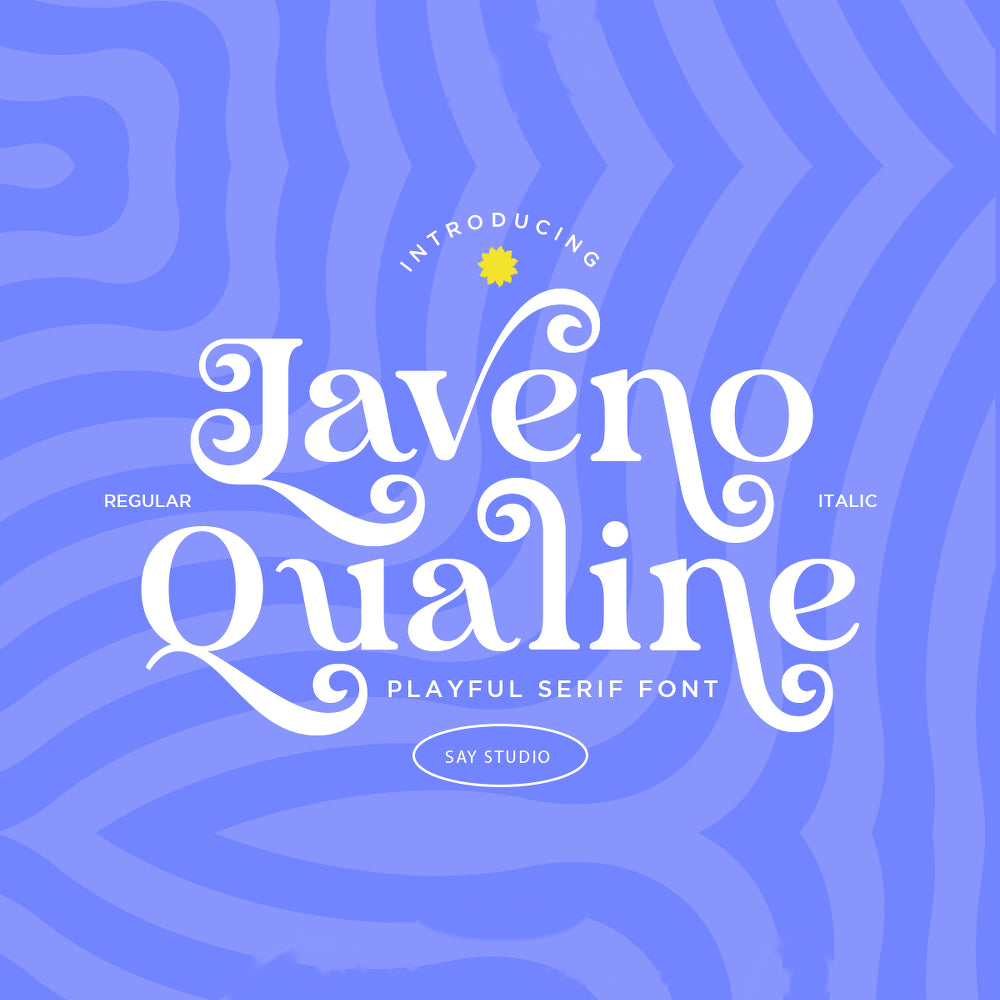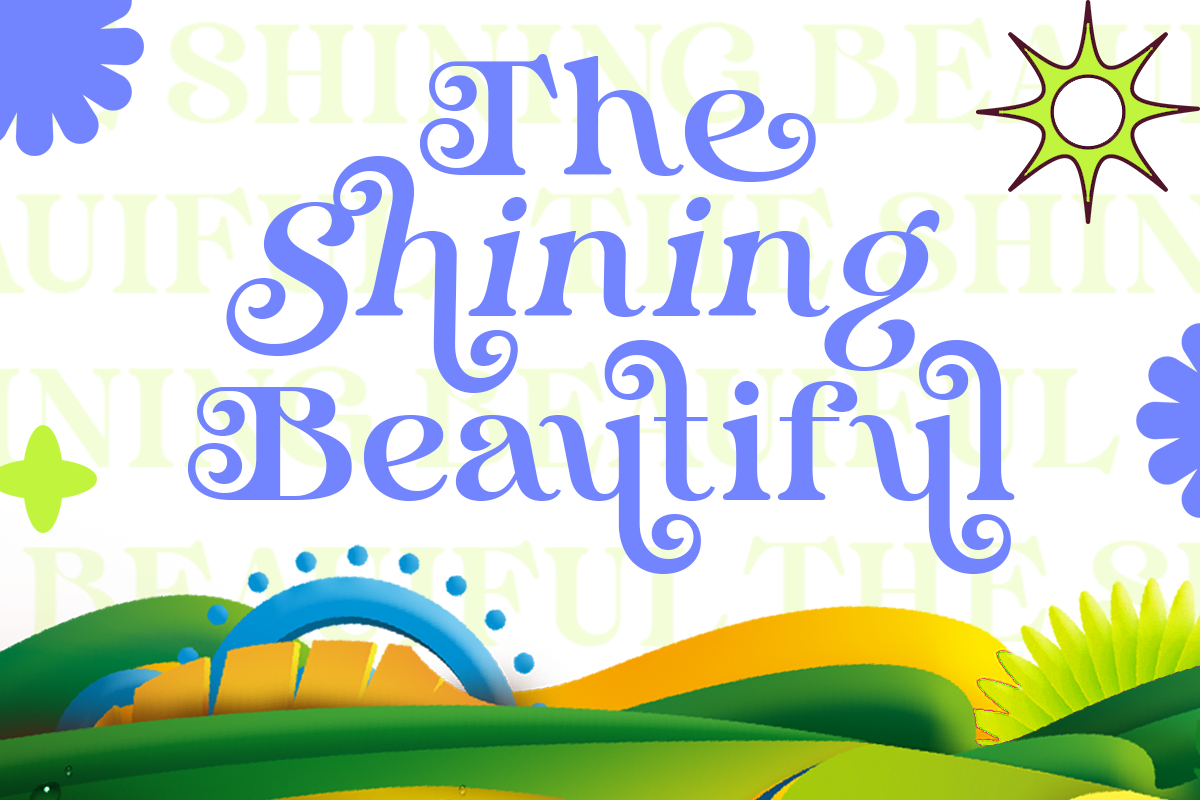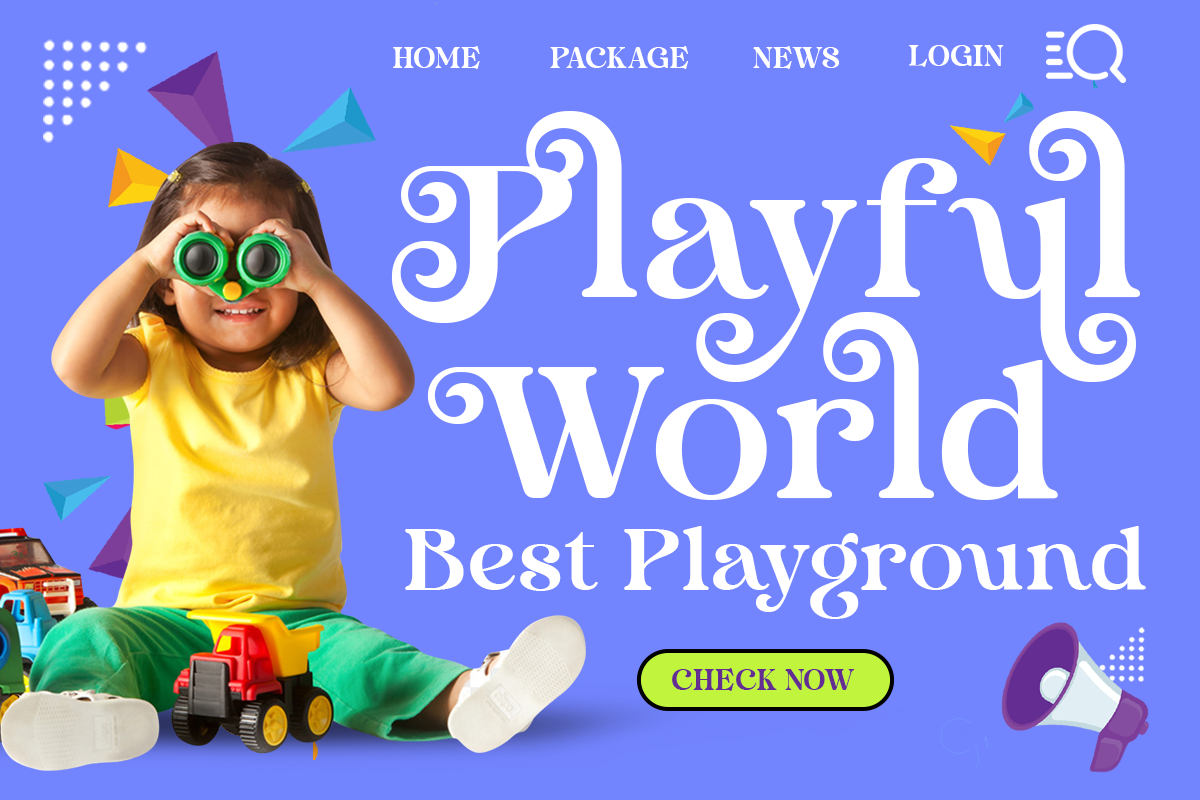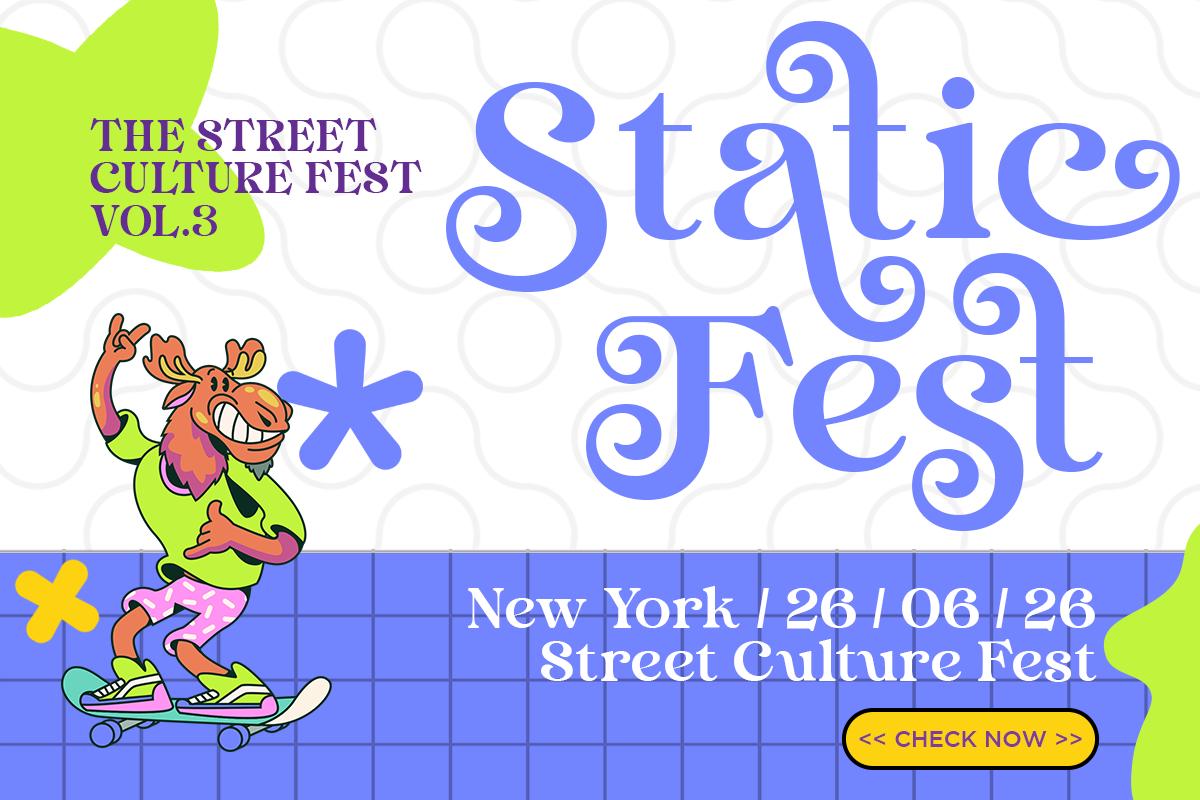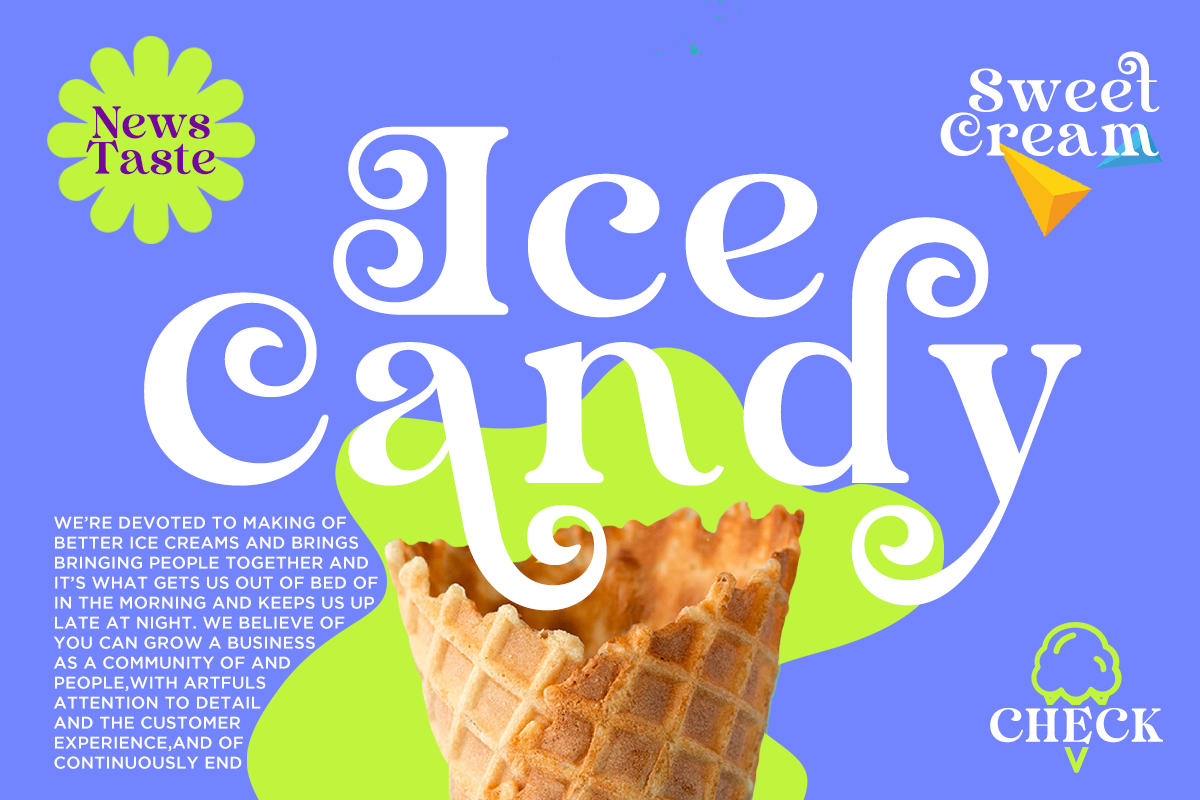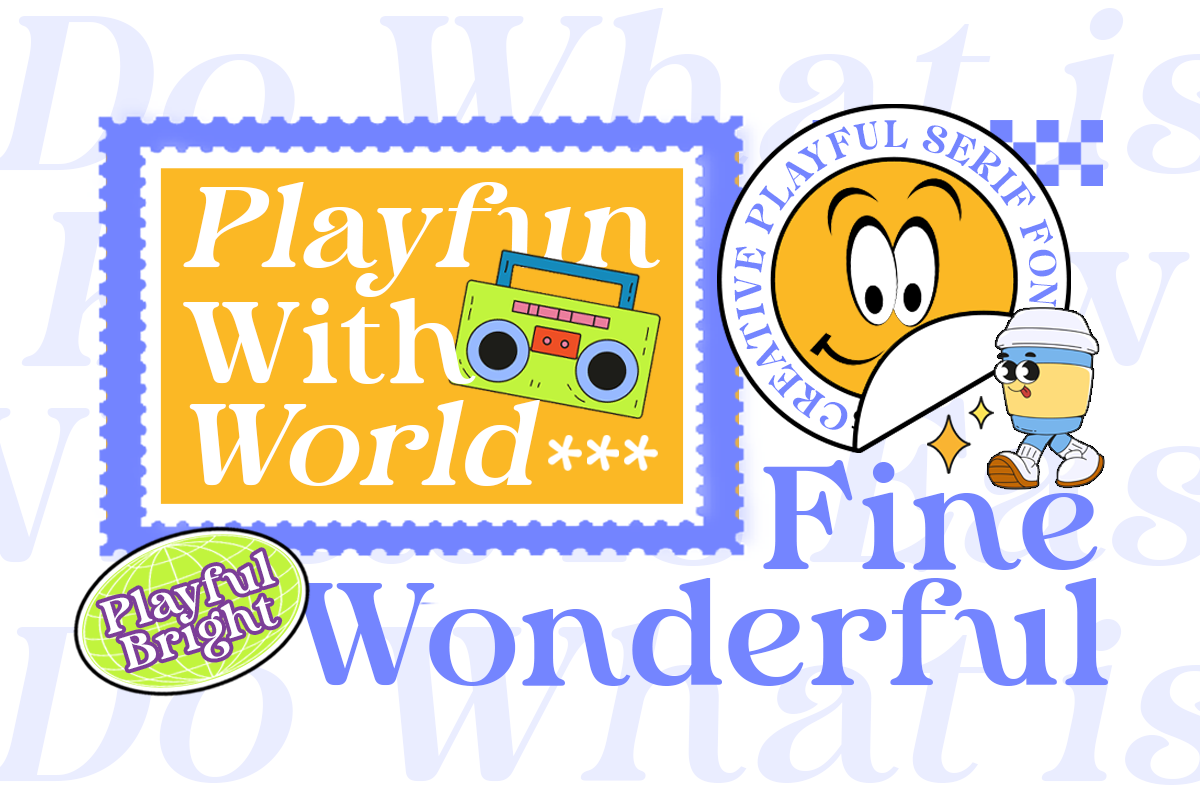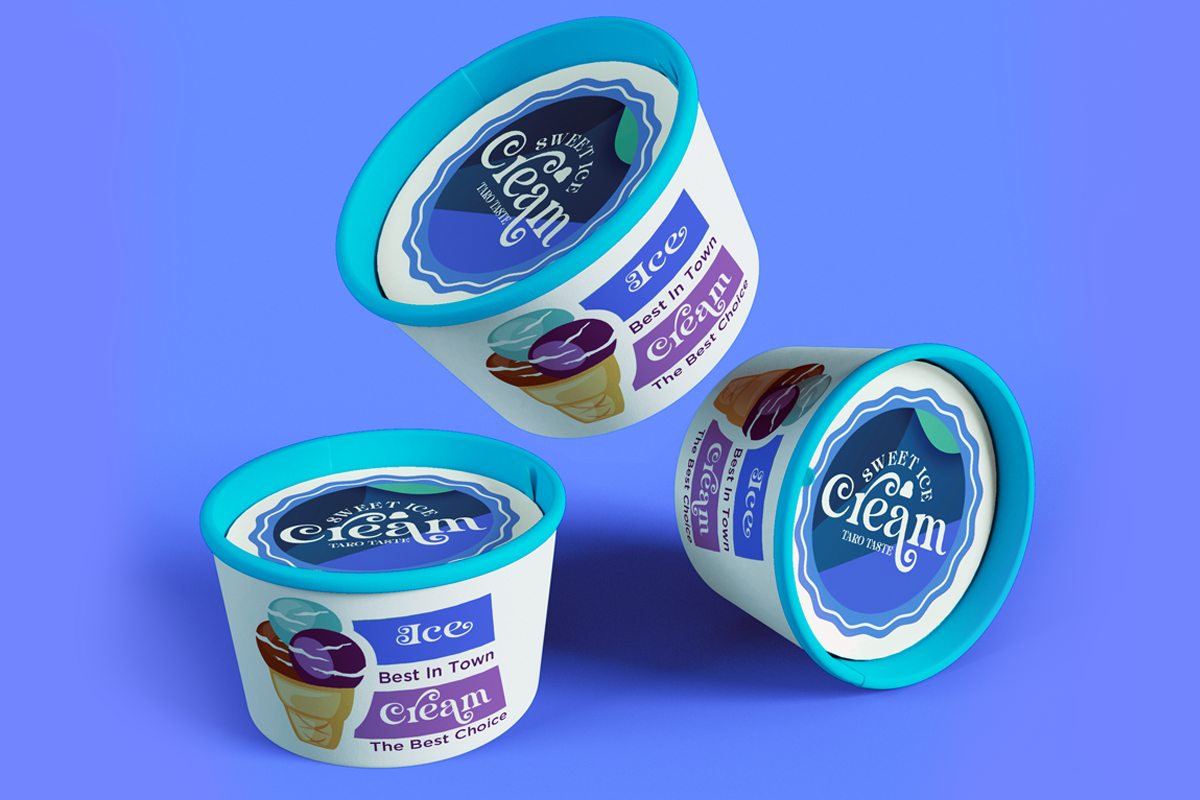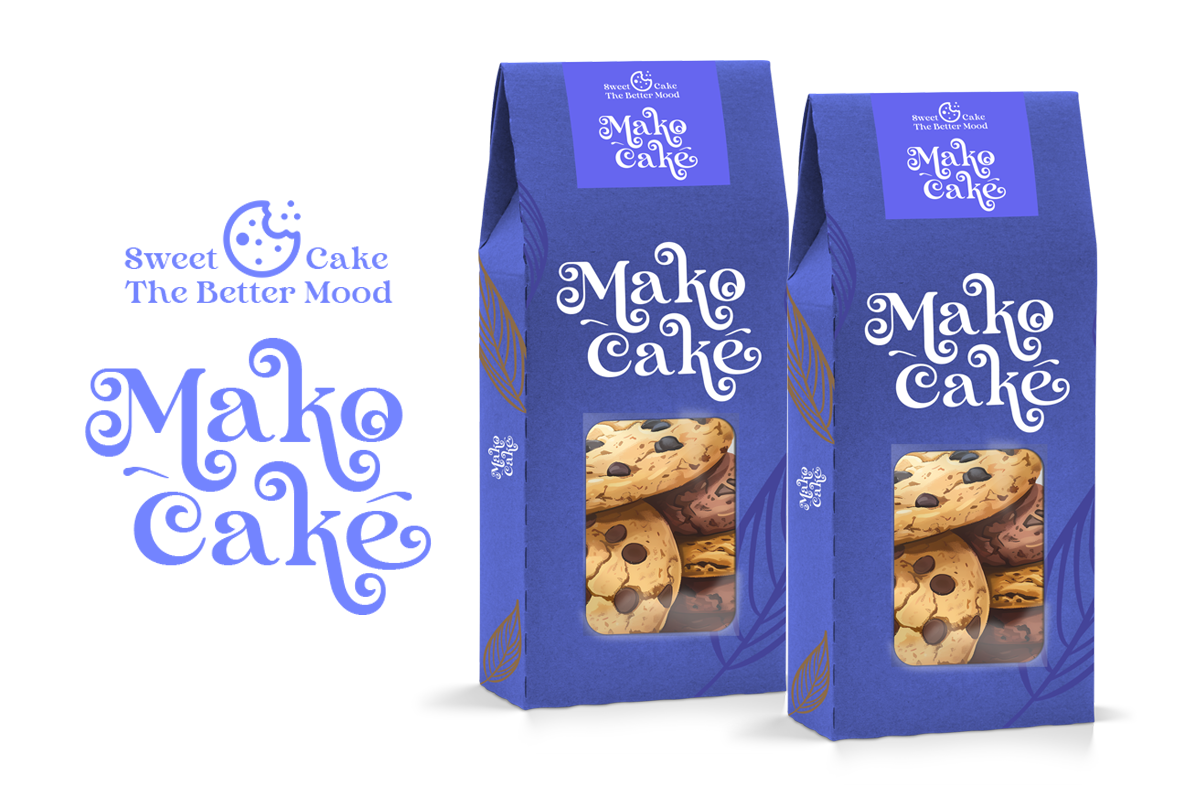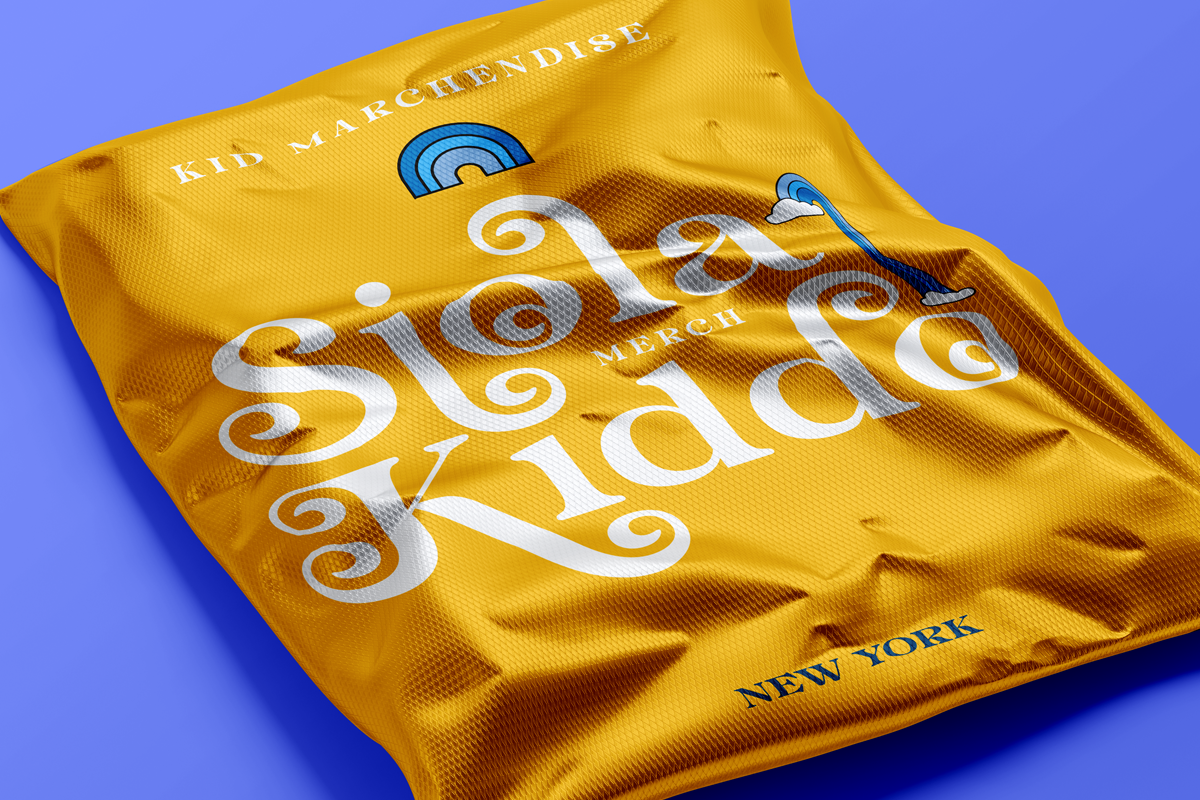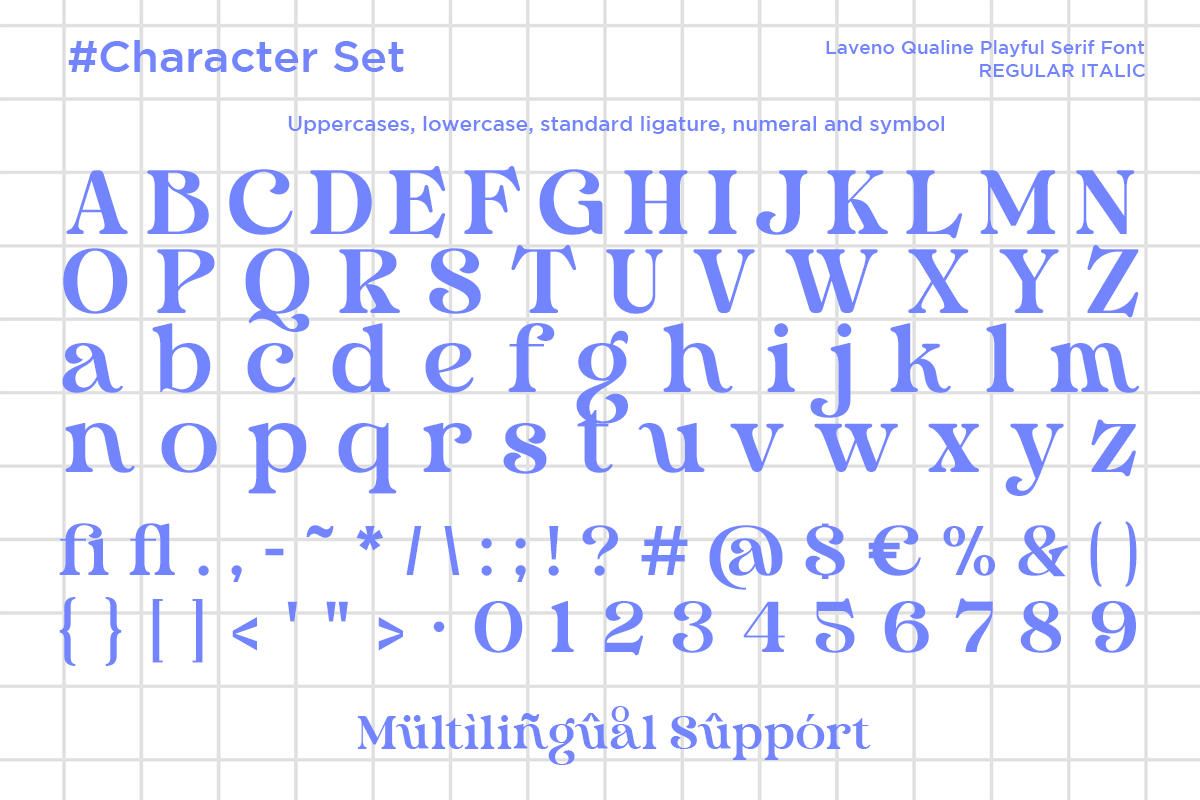
Laveno Qualine - Playful Serif Font
Laveno Qualine is a playful serif font with elegant swashes and decorative curves. Designed to bring joy and personality, this font works beautifully for headlines, logos, branding, packaging, invitations, editorial layouts, and creative typography projects. Its unique character makes it perfect for designs that need a charming, expressive, and stylish touch.
Laveno Qualine is a playful serif font featuring elegant swashes and decorative curves, available in Regular and Italic styles. It includes stylistic alternates, uppercase and lowercase letters, numbers, symbols, punctuation, multilingual support, and is provided in OTF, TTF, and WOFF formats.